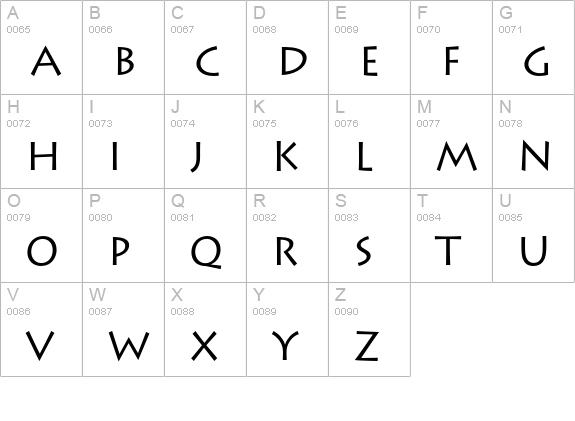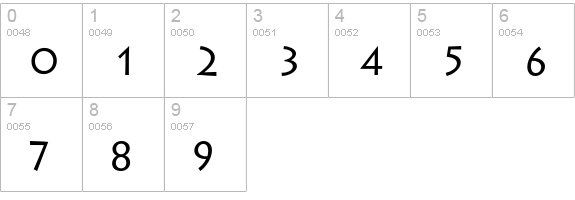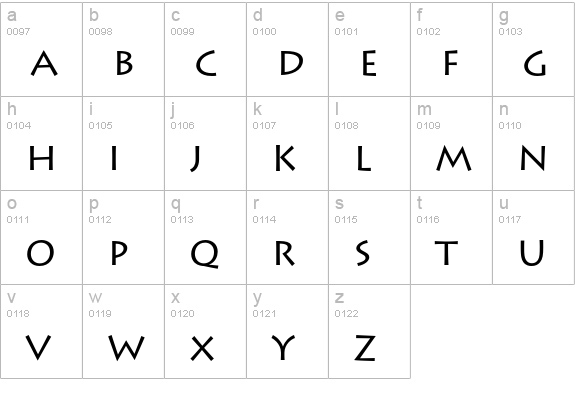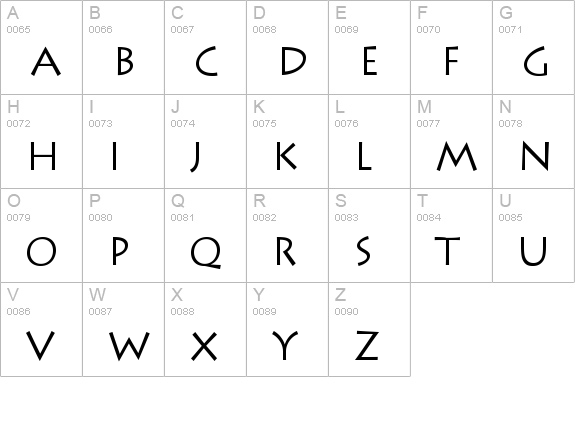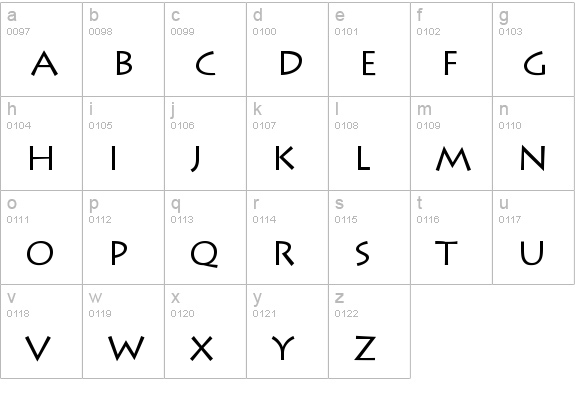
Lithos Pro Font Details
Lithos Pro is a versatile and modern font that exudes elegance and sophistication. Its clean lines and sharp edges make it a perfect choice for a wide range of design projects, from branding to editorial design. This font's unique and eye-catching aesthetic is sure to make your work stand out. The best part? Lithos Pro is available for free download at FontsMarket.com. This means that you can access this high-quality font without having to break the bank. Whether you're a seasoned designer looking to refresh your font collection or a beginner looking for a stylish and reliable font option, Lithos Pro is a fantastic choice. Don't miss out on the opportunity to enhance your projects with the timeless appeal of Lithos Pro. Download it for free today and elevate your design game!